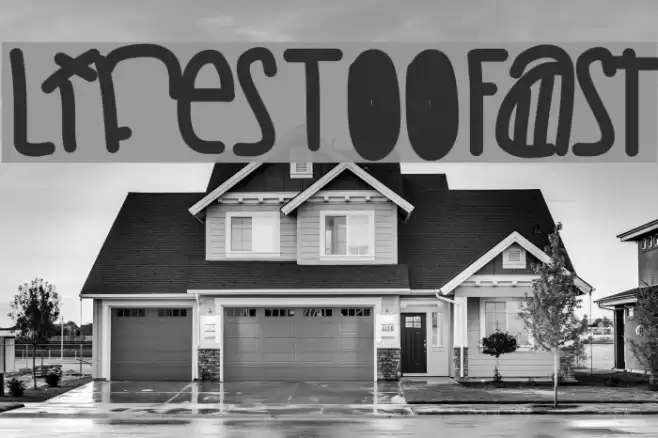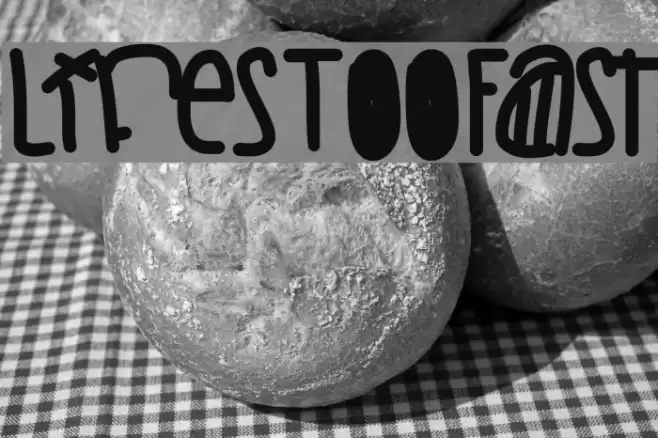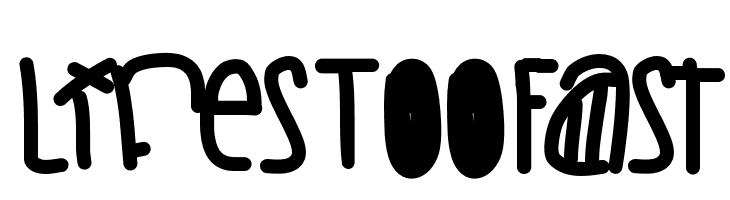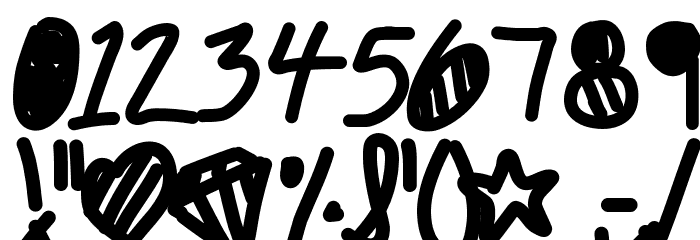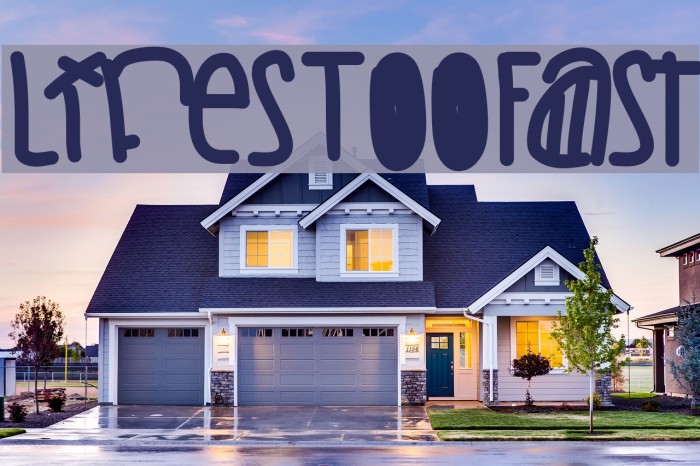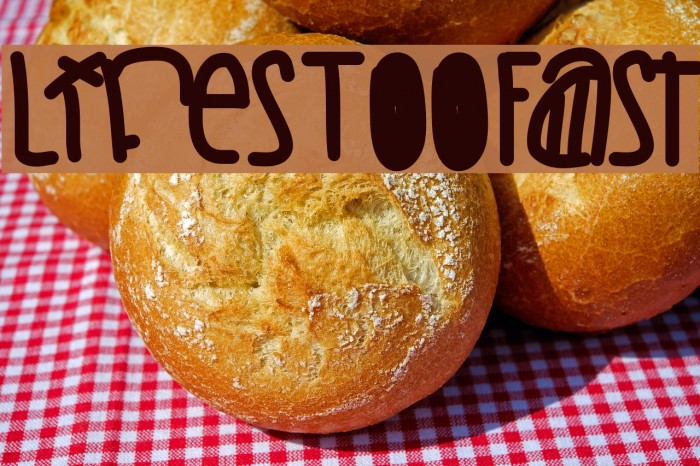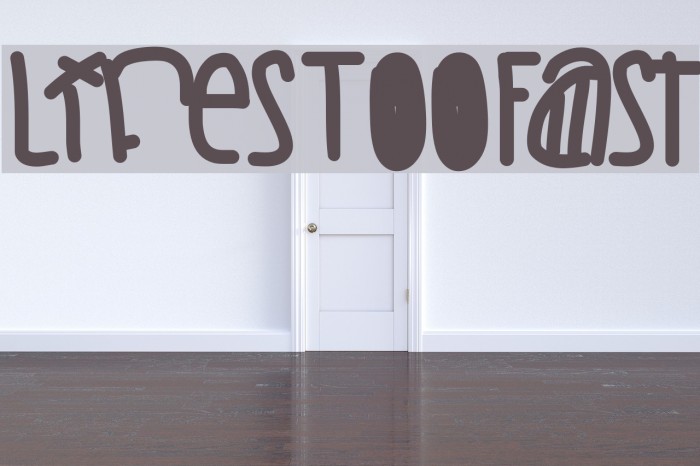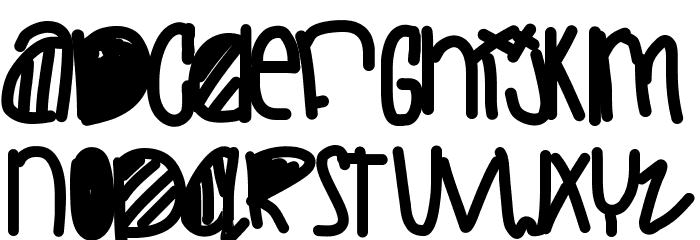
LifesTooFast Font
LifesTooFast Description
This font features a bold, expressive style with a handwritten appearance. The characters are playful and dynamic, with a mix of thick and thin strokes that create a lively and energetic feel. The uppercase and lowercase letters are distinct, with some letters featuring unique embellishments, adding to the font's whimsical nature. The numbers and special characters maintain the same energetic style, making the font suitable for creative and informal applications. The overall design is eye-catching and conveys a sense of fun and spontaneity.
A bold, playful handwritten font with dynamic strokes and whimsical embellishments from Uncategorized fonts.
- Proposed Projects: Ideal for children's books, playful branding, greeting cards, and creative social media graphics.